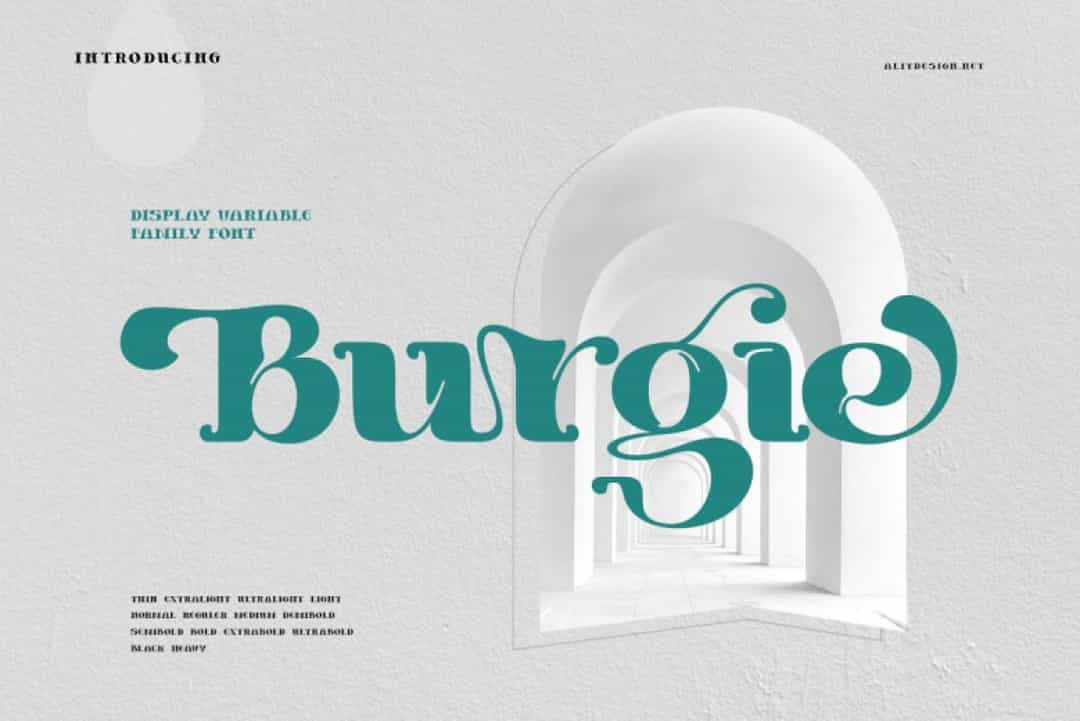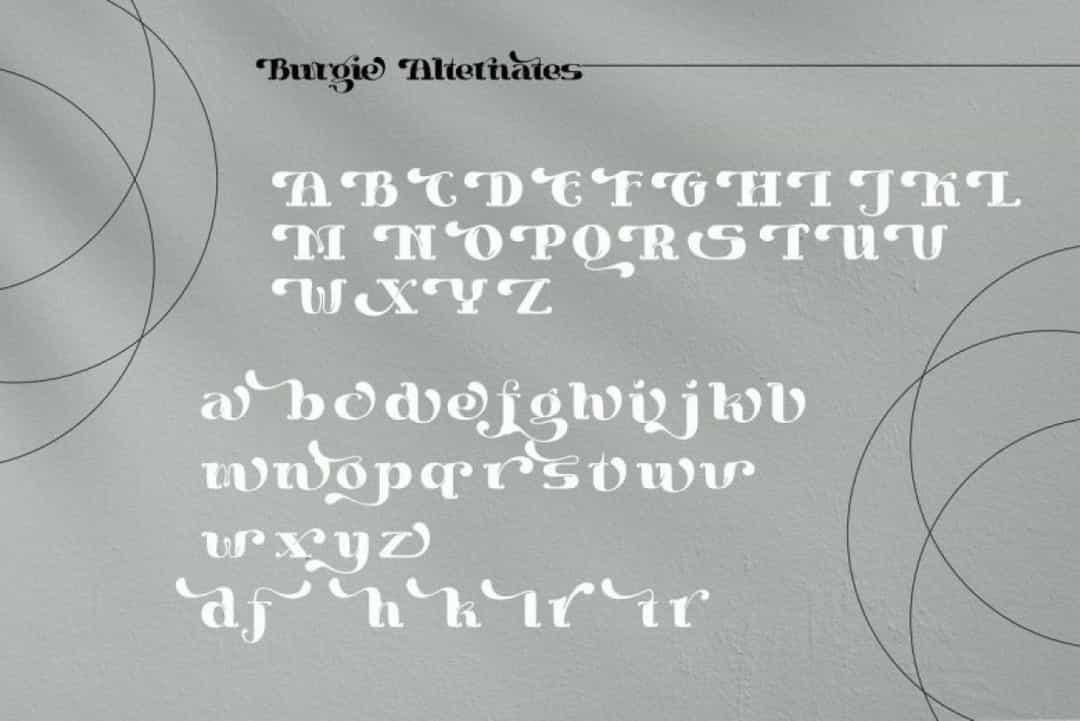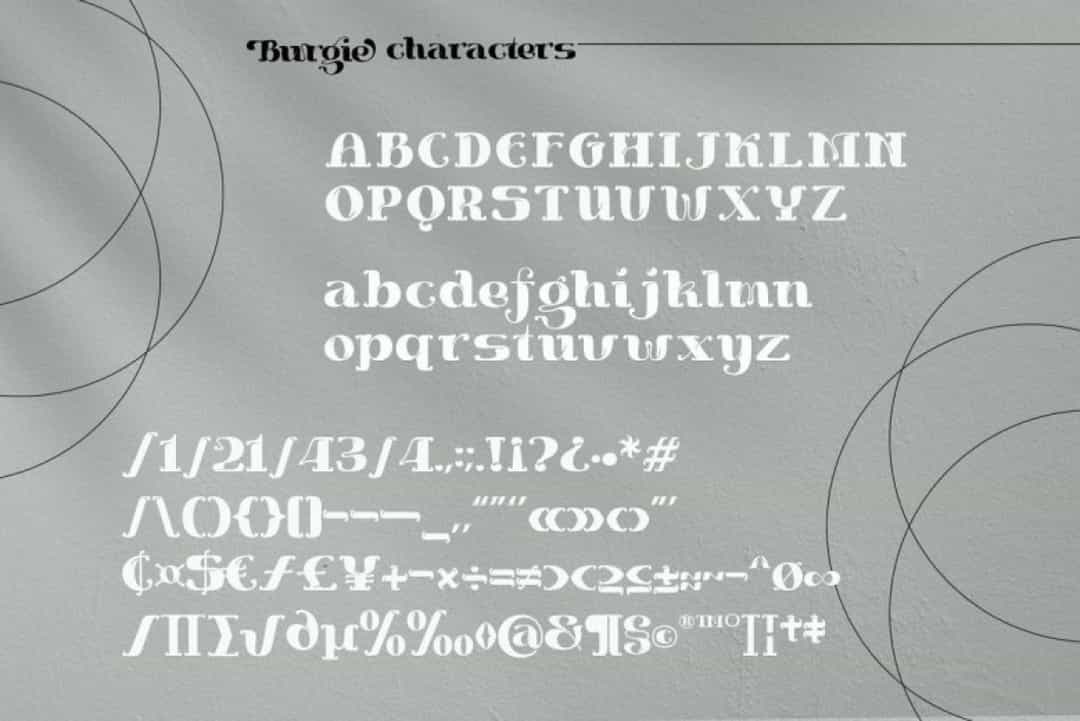
Burgie Font
Burgie Serif The font with Swash alternate style and unique font design offers an eye-catching display font to give your work its own distinctive style. Featuring sophisticated weight variations from thin to heavy families of fonts, it makes a striking and eye-catching statement when used for vintage posters, retro themed posters or any design where vintage themes or retro styles may be desired.